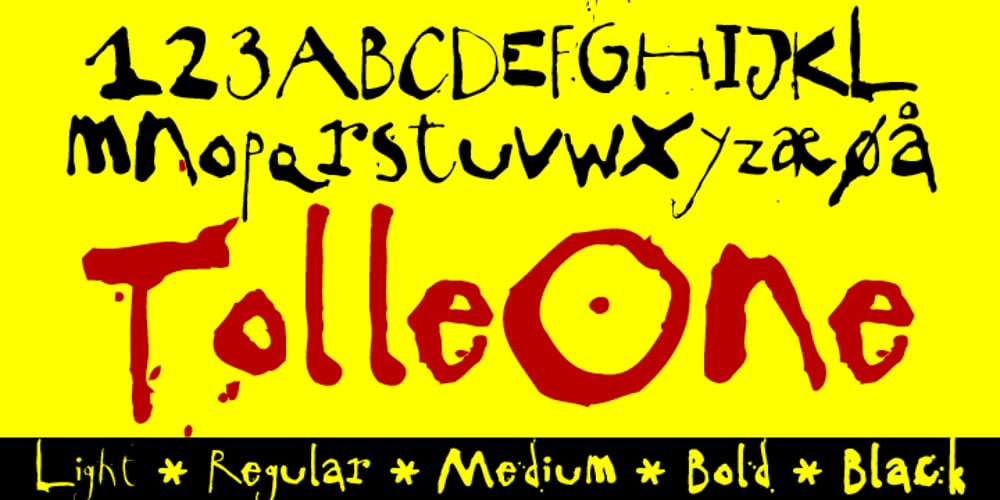
TPG Tolle One Font Family was designed by Lars Pryds and published by Tolstrup Pryds Graphics. TPG Tolle One contains 5 styles and family package options. TolleOne – a display font family of five weights, named after my wife, whose nickname is Tolle. The “One” indicates that she is number one, of course, but also that this is the first set of fonts I have published.